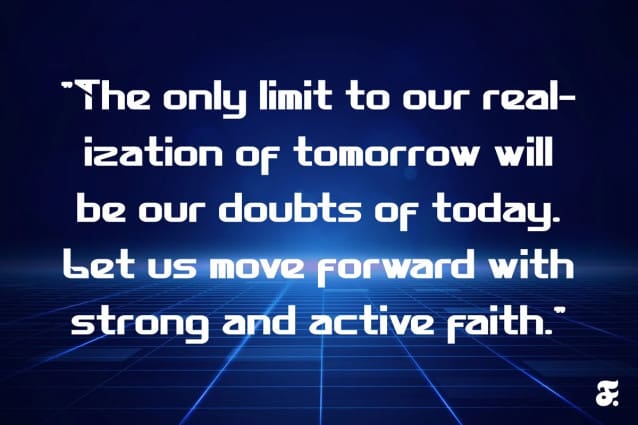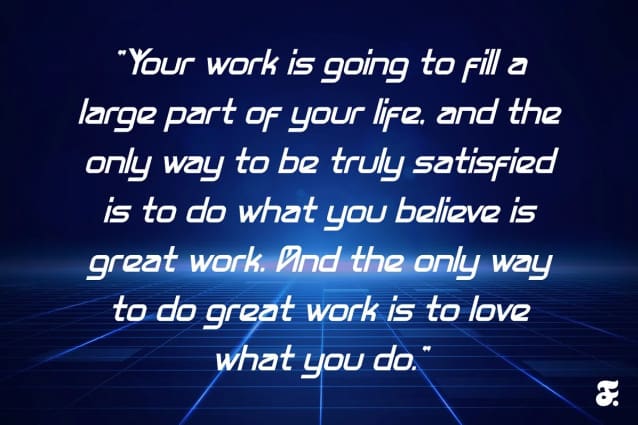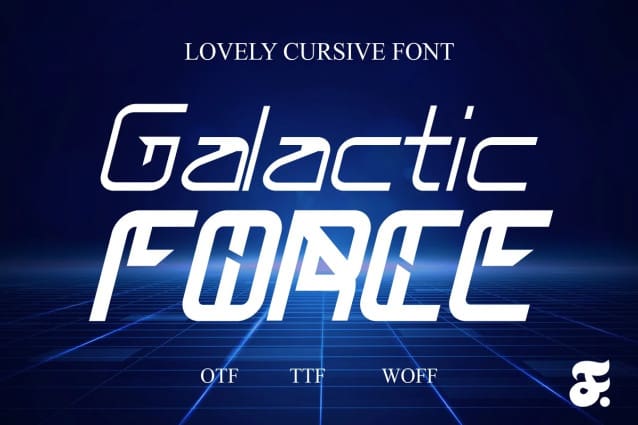
Galactic Force Font
Galactic Force Font is a stellar exploration into the world of typography, offering a captivating and futuristic design that seamlessly blends form and function. Crafted with meticulous attention to detail, this typeface embodies the essence of space-age aesthetics, making it a perfect choice for projects that demand a cutting-edge and otherworldly vibe. The sleek, modern lines of Galactic Force evoke a sense of technological sophistication, reminiscent of the sleek surfaces of advanced spacecraft and the clean lines of futuristic interfaces.
Designed to be versatile yet distinctive, Galactic Force Typeface is equipped with a range of characters that exude a sense of intergalactic adventure. Whether used in digital or print media, the typeface’s crisp letterforms maintain clarity and readability, ensuring that your message resonates with the audience. The careful balance of geometric precision and artistic flair in Galactic Force makes it a go-to choice for projects ranging from sci-fi book covers to technology branding, providing a visual language that transports viewers to the outer edges of the cosmos.
What sets Galactic Force apart is not only its visual impact but also its ability to evoke a sense of wonder and imagination. The typeface becomes a conduit for storytelling, offering designers a tool to infuse their projects with a touch of cosmic allure. Galactic Force Typeface isn’t just a set of letters; it’s a design voyage into the unknown, inviting creators to explore the limitless possibilities of the typographic universe.